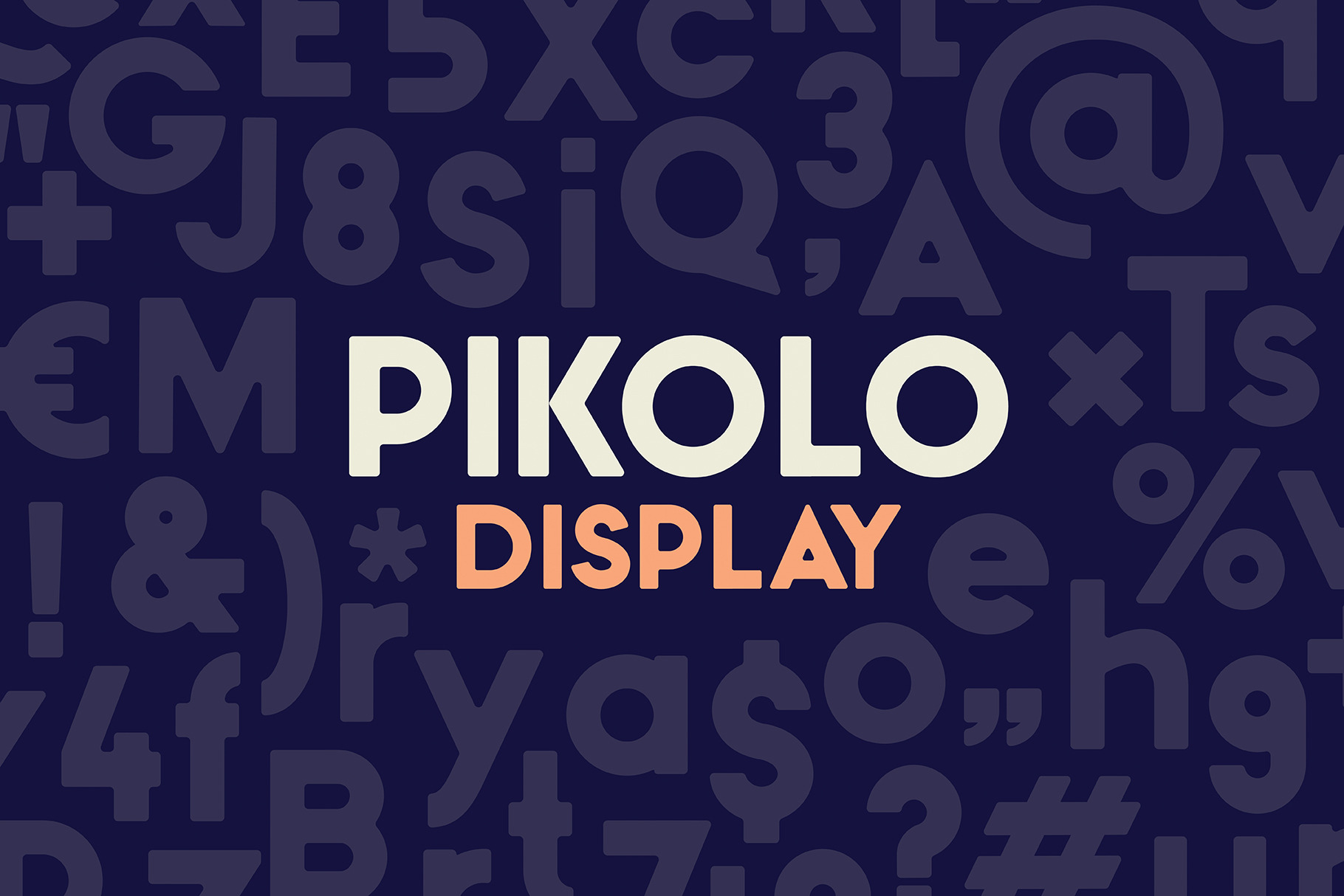
Pikolo Display Font
Pikolo is the first of the Pikolo font family inspired by vintage woodblock printing.
Pikolo is a slightly rounded display typeface. It is bold and playful, perfect for headings, logos and so much more! The font comes with full upper & lower case characters, numbers, symbols and includes the most common stylistic ligatures.
Updated for multilingual support, languages include: Dutch, Danish, Norwegian, Finish, Swedish, Icelandic, Estonian, Latvian, Lithuanian, German, Hungarian, French, Portuguese, Spanish, Italian, Bosnian, Croatian, Czech, Slovak.